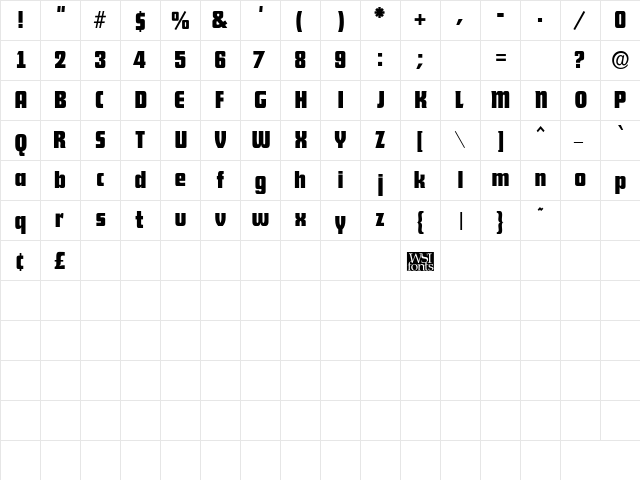
Shylock Bold
Design Context for Shylock Typeface
Shylock takes a measured approach to typography — its balanced proportions and neutral character make it a reliable workhorse for both digital and print work. The heavy weight commands attention and anchors typographic hierarchies.